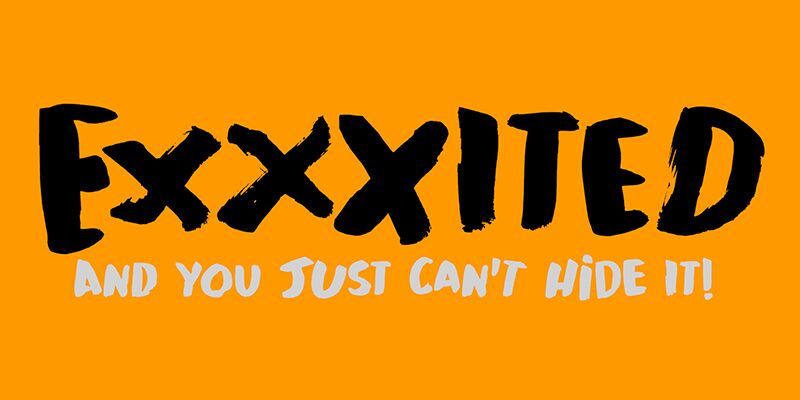
Exxxited font by Hanoded is a free brush font with a dynamic rhythm and expressive personality. Carefree brush-like textures provide an energetic feel, modern aesthetic, and casual tone perfectly suited for contemporary designs. Cool and balanced, Exxxited will make readers want to take a closer look at the interesting typography in front of them.
Exxxited can be utilized in printing projects like magazines, newspapers, and even print packaging. Online, use it for social media banners and posts, websites, and YouTube thumbnails. Solo designers and agencies alike can reap the benefits of this pretty brush typeface today!